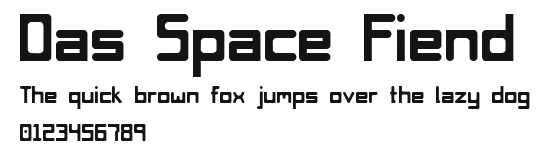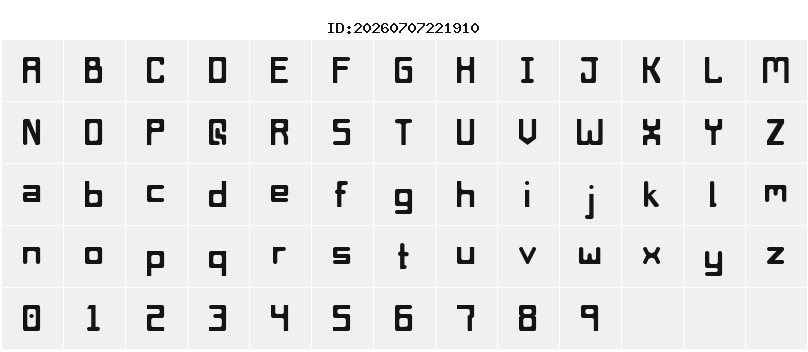
• Font Name: Das Space Fiend
• Font ID: Das Space Fiend
• Full Font Name: Das Space Fiend
About Das Space Fiend.ttf
Das Space Fiend.ttf is a modern, elegant sans-serif font designed for ultimate readability and visual harmony. Perfect for branding, headlines, web design, and print materials.